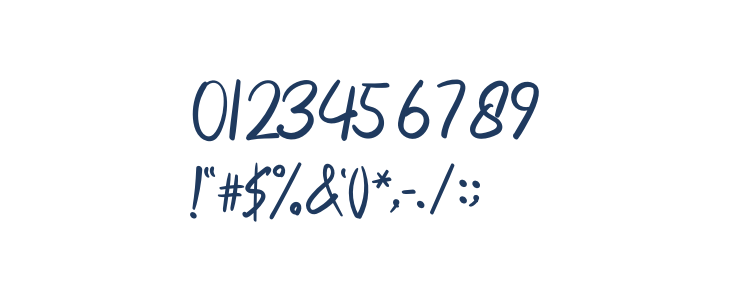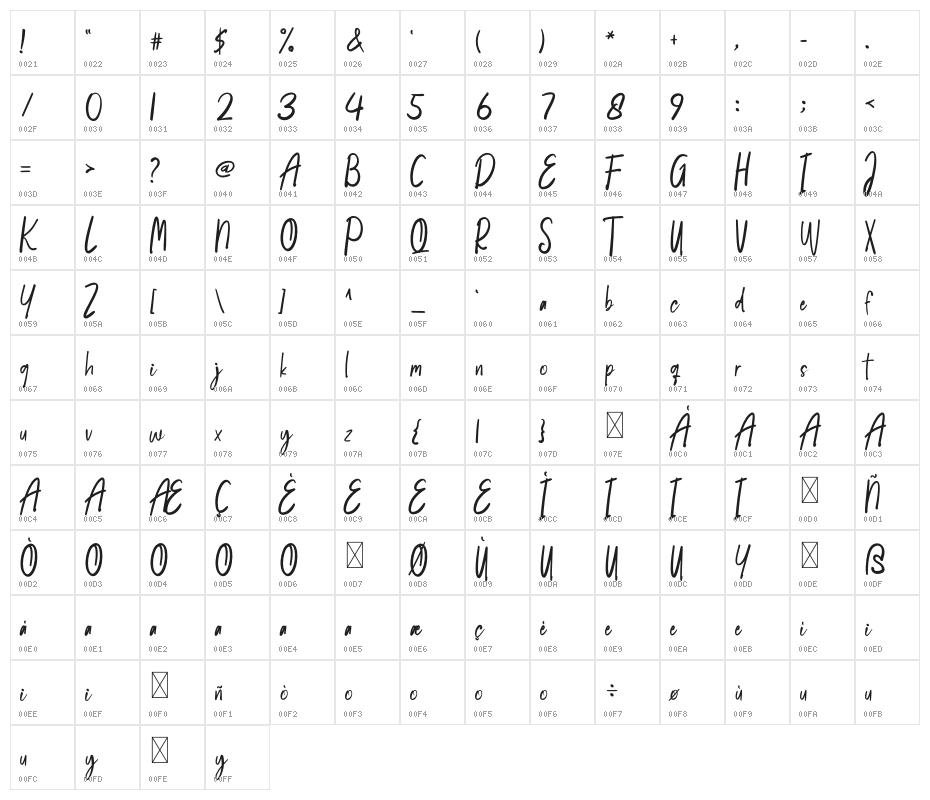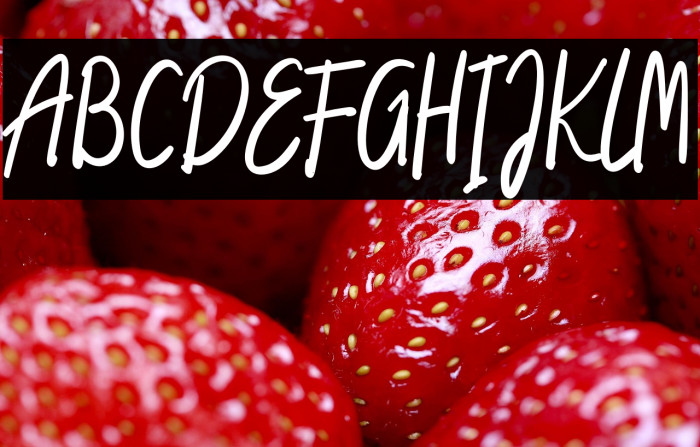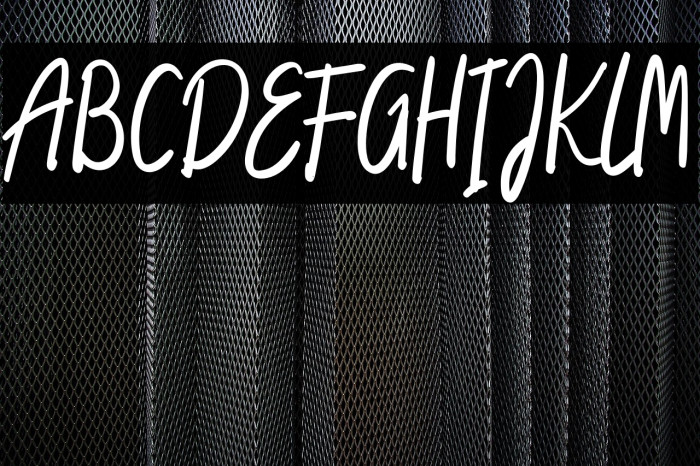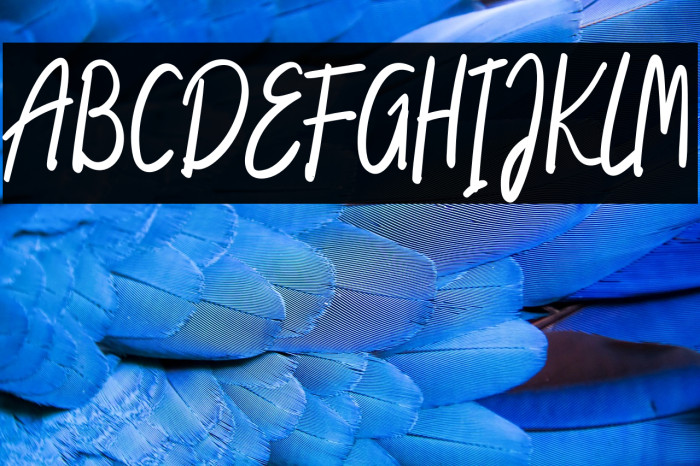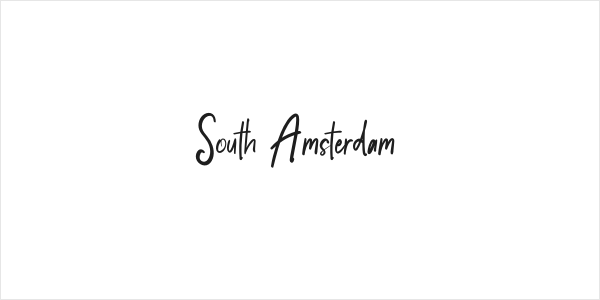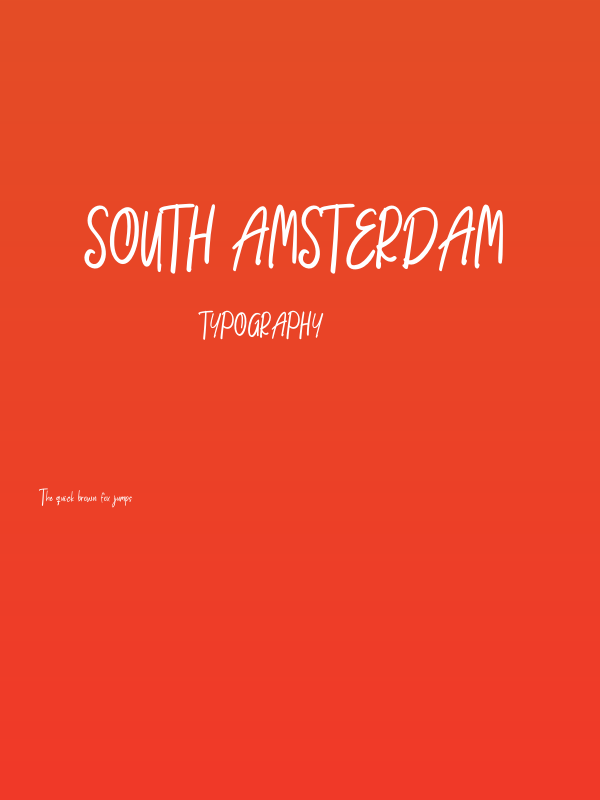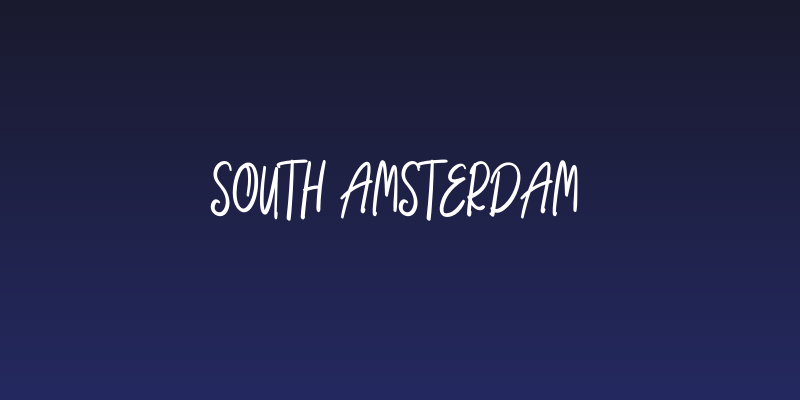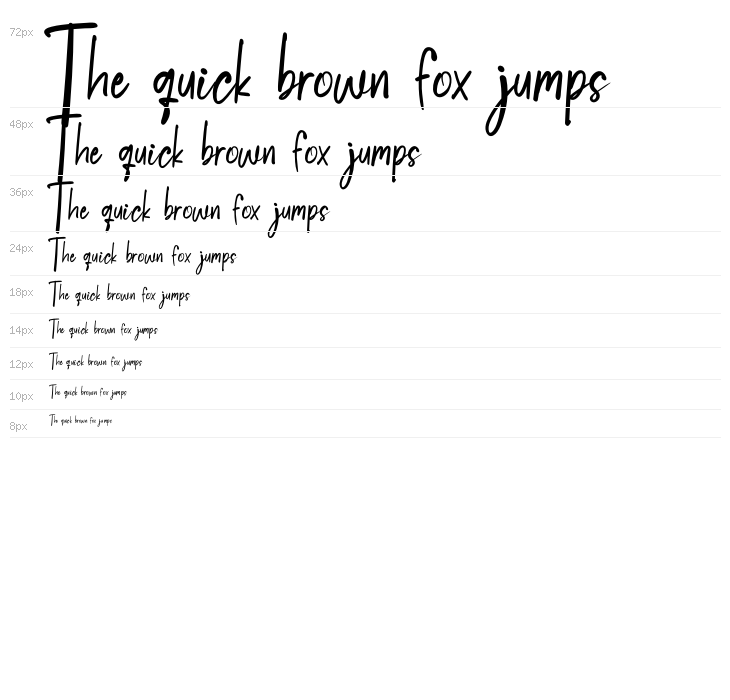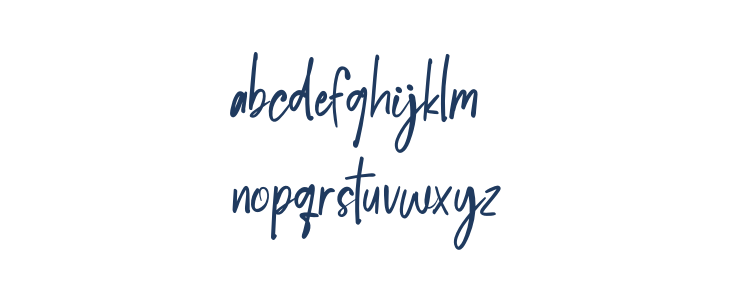
South Amsterdam Font
South Amsterdam Description
This font exudes a lively and dynamic character with its handwritten style, featuring smooth, flowing curves and a casual, informal appearance. The letters are slightly slanted, adding a sense of movement and energy. The uppercase and lowercase letters are well-balanced, with a playful yet sophisticated touch. The numbers and special characters maintain the same energetic style, making the font versatile for various uses. The overall design is modern and approachable, perfect for projects that require a personal and friendly tone.